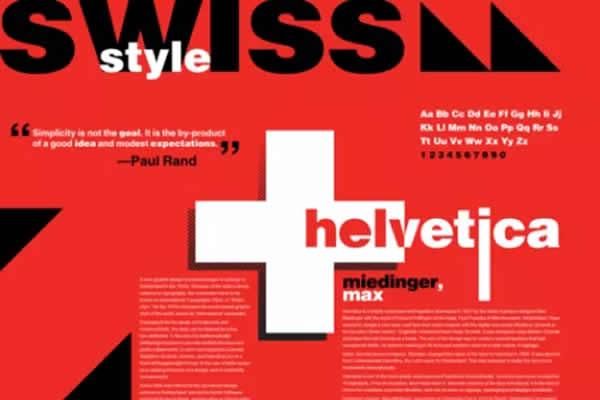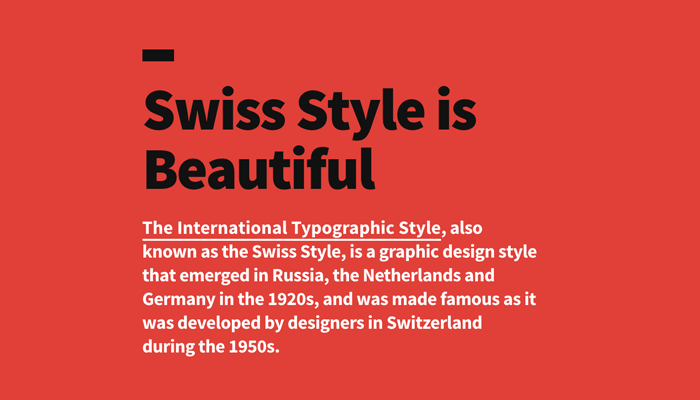
Swiss Design Fonts
Swiss Design Fonts. Your font choice is critical when it comes to swiss style web design. Because of this, the typefaces chosen to represent swiss style are those that really hone in one the movement’s key principles:
Helvetica and the Aesthetics of Swiss Design The
Look at any poster from the period and you’ll see big, bold fonts taking up much of the space. A study in minimalism, swiss design tended to emphasize typography in its works. Swiss 721 free font family is a sans serif family that ranges in style from thin to black while mixing in a few unexpected, but beautifully made and ironically flattering, outline weights that spice up the grotesque design.
The goal was clarity, order, and a universally understood visual language. Look at any poster from the period and you’ll see big, bold fonts taking up much of the space. Couple these upstanding letterforms with matching italic styles and you have yourself a beautiful tool that is as legible on screen as it is off, has the technical.
Swiss Style And 60 Years Of Font War Helvetica, Probably The Most Successful Typeface In All Of History, Made Its Debut 60 Years Ago This Year.
The swiss style was a major force in graphic design in the 50s through the 80s. These are fonts that do not use serifs or ‘hats and shoes’. Sans serif typefaces like akzidenz grotesk and, later, helvetica (originally called neue haas grotesk);
A study in minimalism, swiss design tended to emphasize typography in its works. With their use of grids and shapes, designers also wanted to create continuity between designs with their use of certain typographic fonts. Swiss design style has been inspiring designers since the 1950s.
Your font choice is critical when it comes to swiss style web design. During the 1950s a design movement emerged from switzerland and germany that designers call swiss design, and historians call the international typographic style. The light observer magazine, “prospective issue” c.
The reason behind this is. They attempted to remove all that was unnecessary and emphasize only the necessary. Type is the primary design element in swiss style.